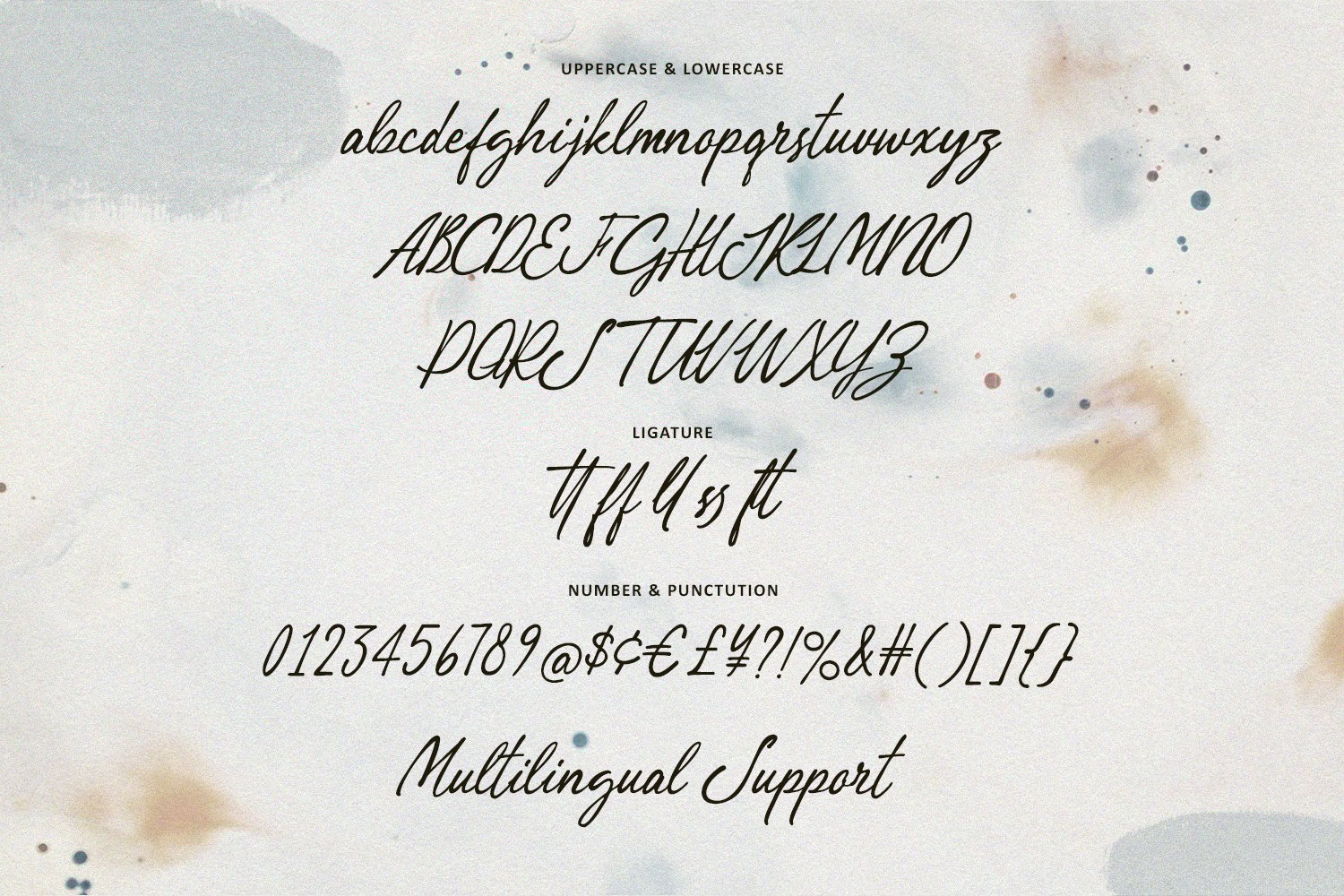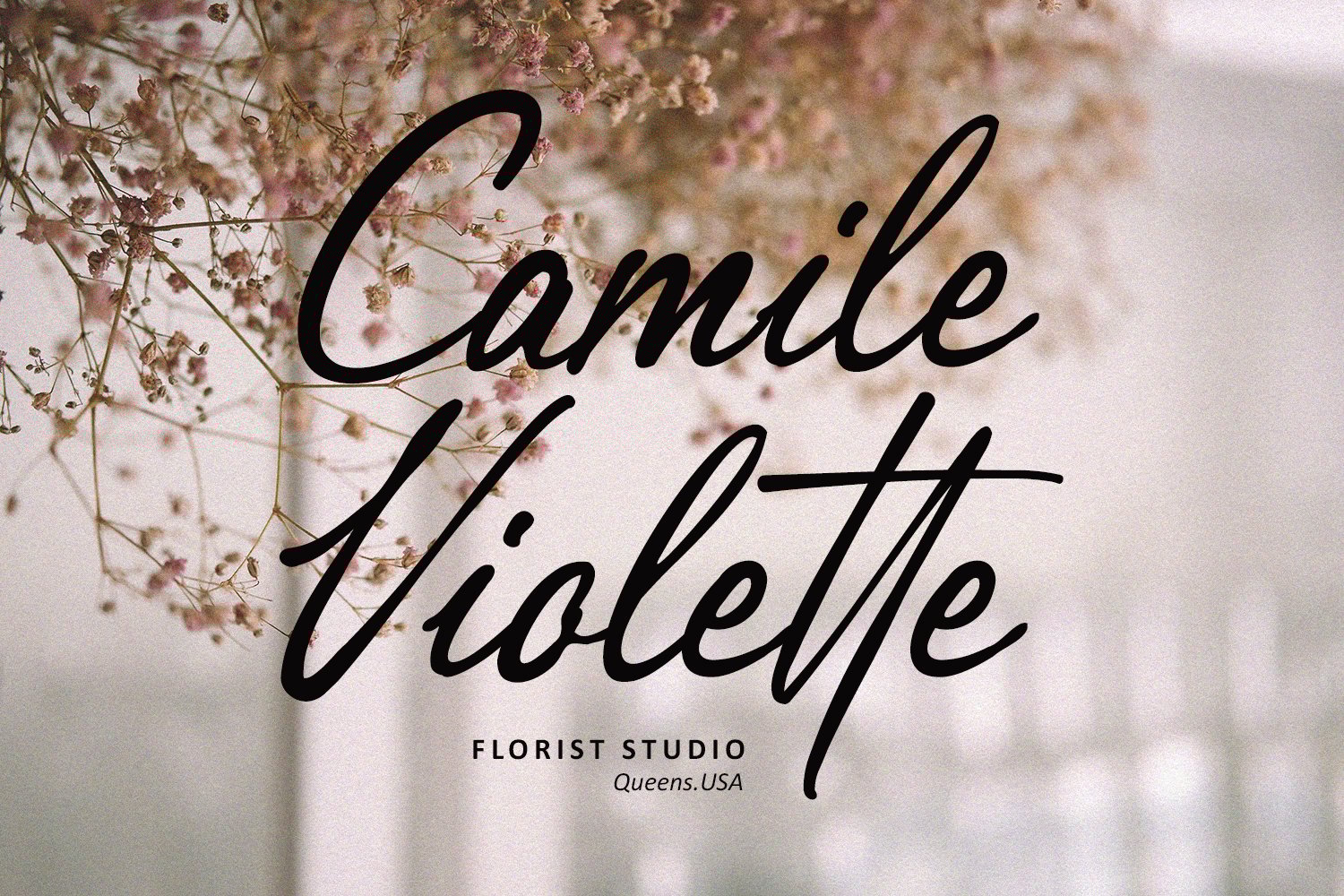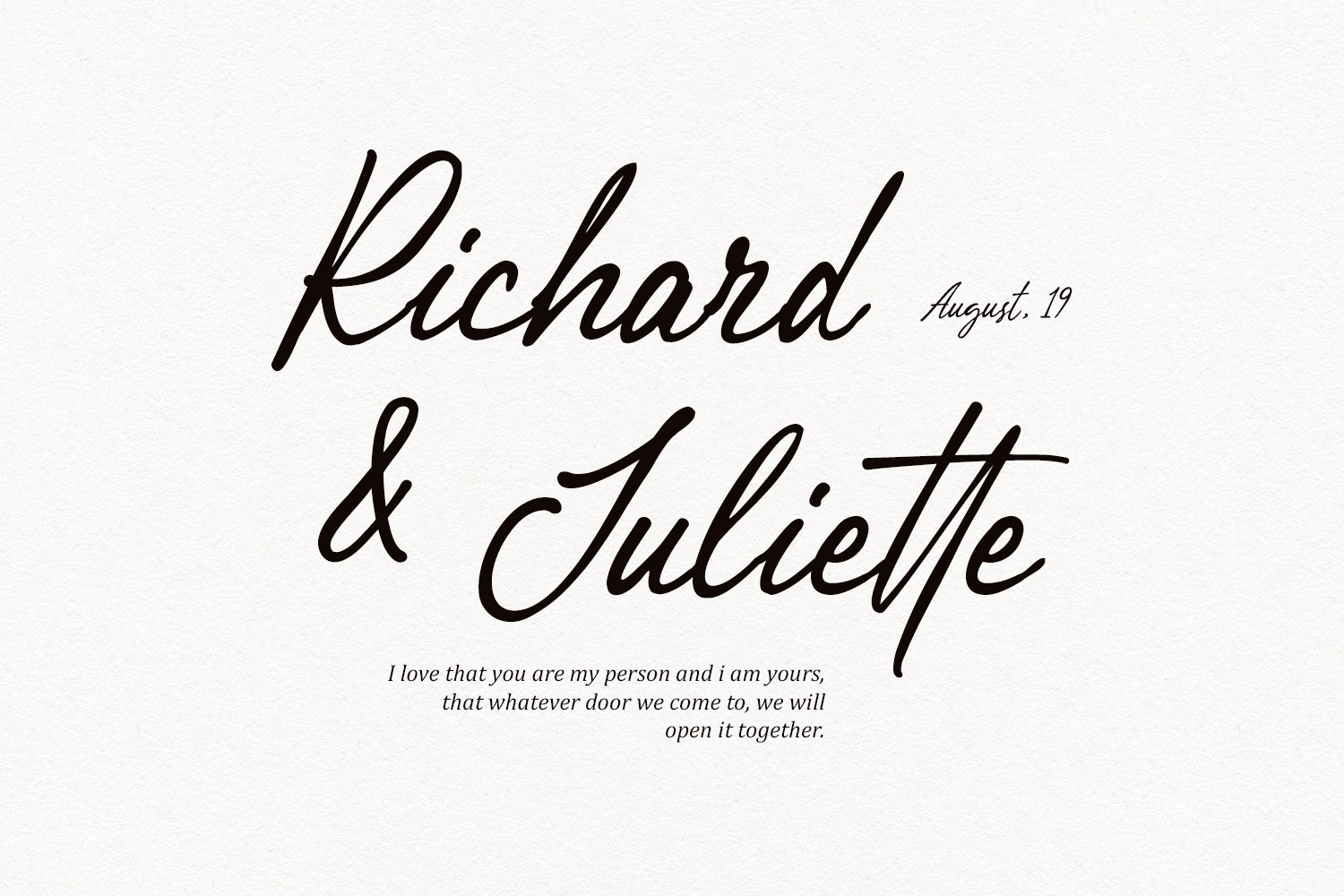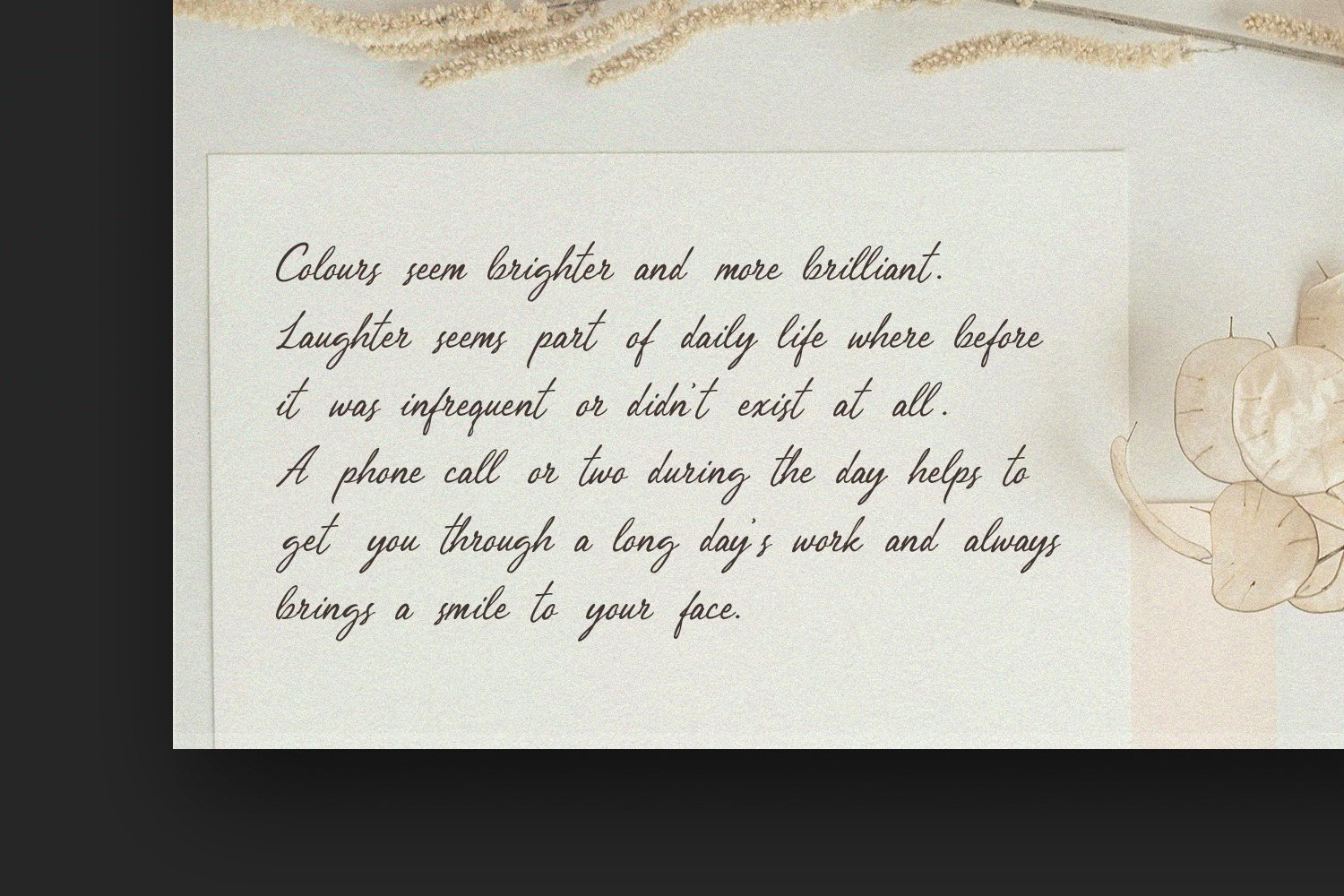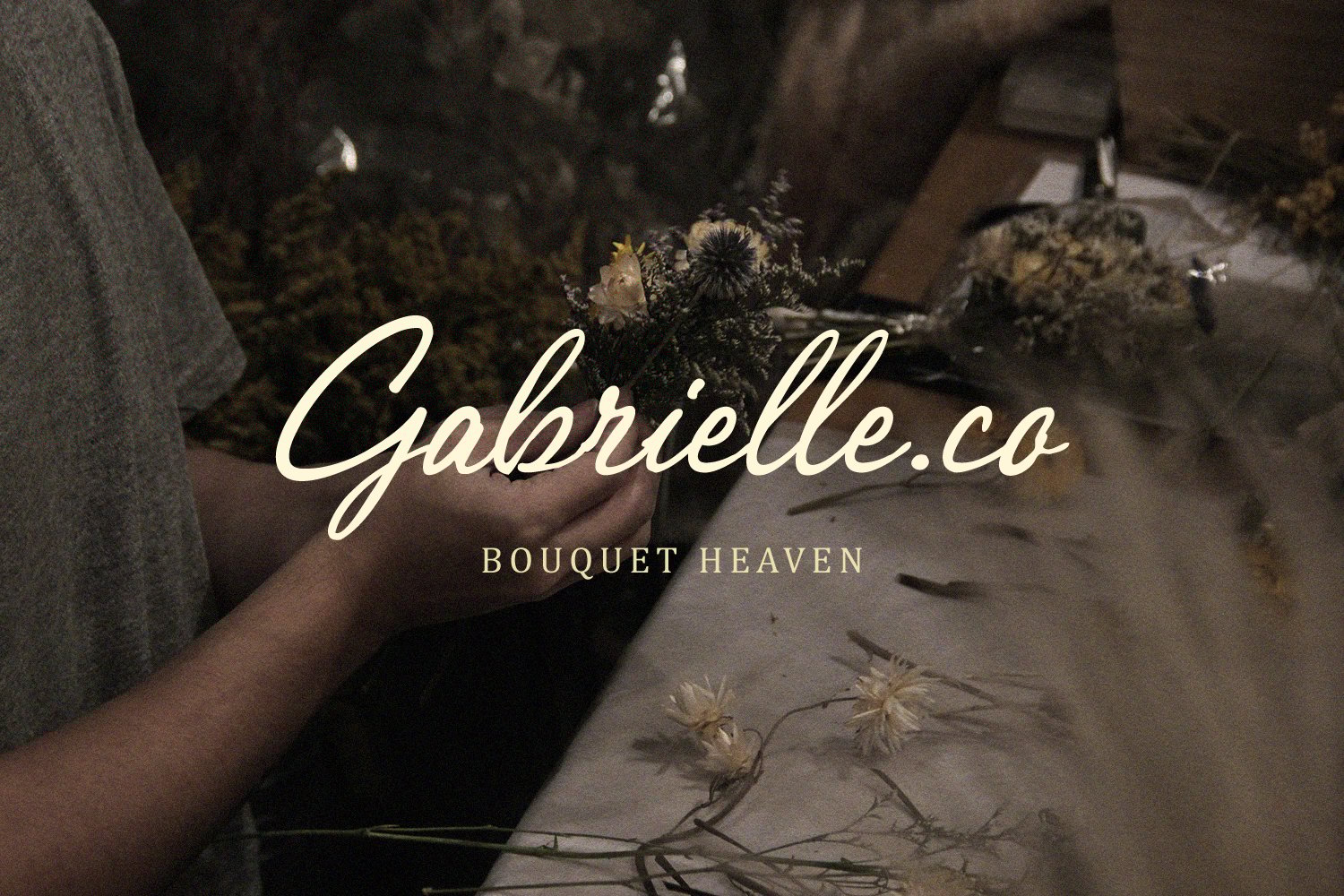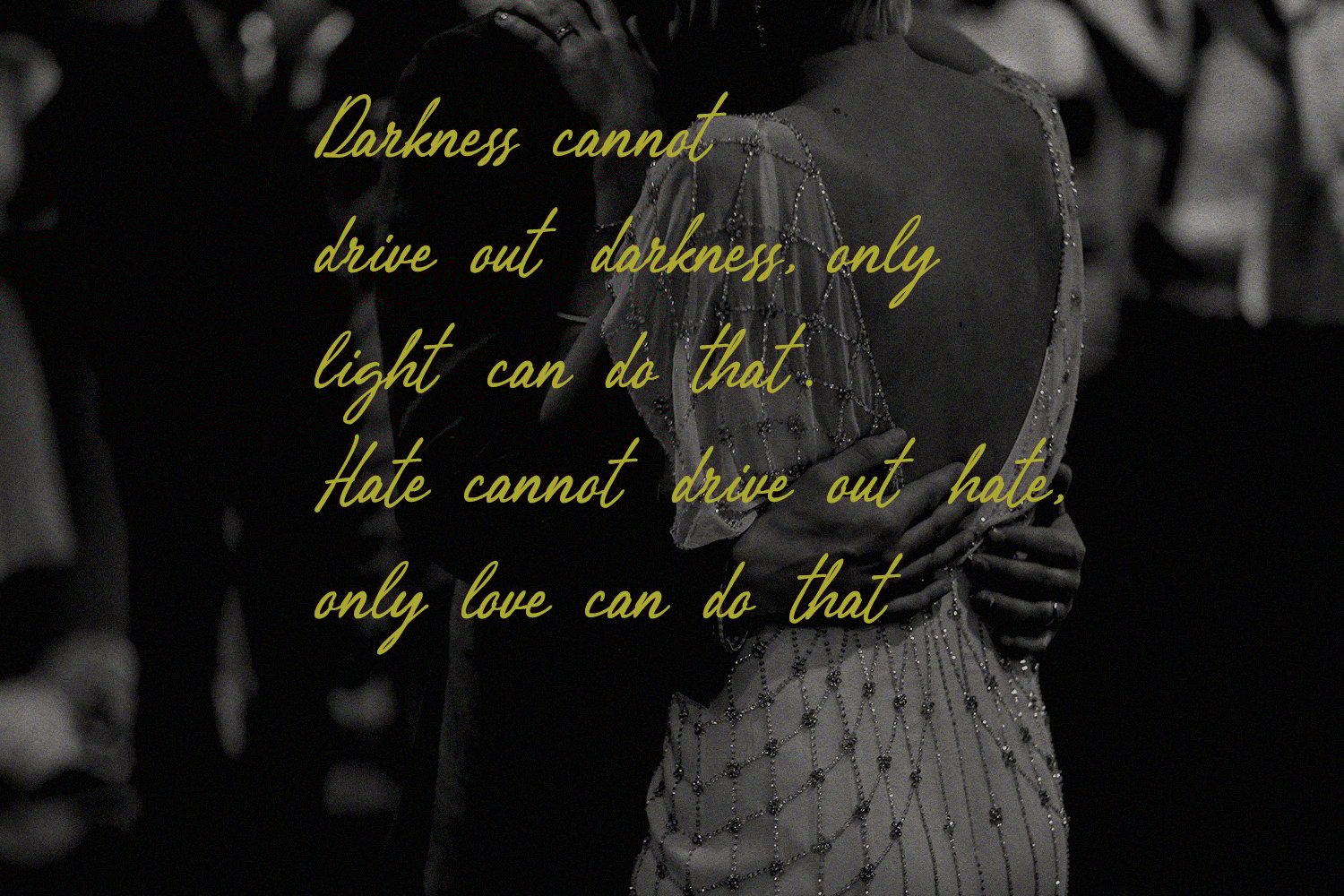
Peftyon Elegant Signature Script Font
Peftyon - Elegant Signature Script Font for Branding & Photography Logos
Experience the art of personal touch with Peftyon. Peftyon is a sophisticated signature script font designed to mimic natural, flowing handwriting. With its organic strokes and elegant curves, this font brings an authentic, high-end feel to any creative project. It is perfectly suited for branding, wedding invitations, luxury logos, social media quotes, and photography watermarks.
Why Choose Peftyon?
- Authentic Hand-Drawn Feel: Perfectly balanced strokes for a realistic signature look.
- Versatile Application: Ideal for high-end fashion branding, stationary, and editorial design.
- Professional Polish: Includes a full set of uppercase, lowercase, numerals, and punctuation.
- Ligatures